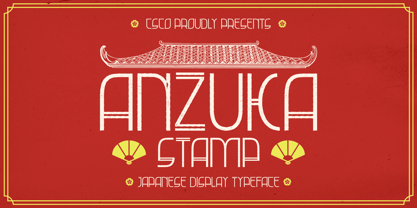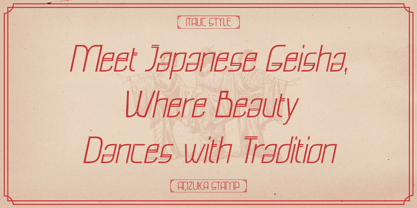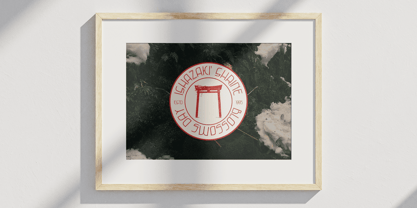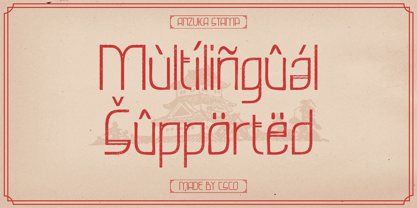
Anzuka Stamp
by Craft Supply Co
The Anzuka Stamp Font Family was designed by Trio Nazzar Saputra, Wahyu Hadi Yuana and published by Craft Supply Co. Anzuka Stamp contains 2 styles and family package options. More about this family
Anzuka Stamp Font: Where Art Deco Elegance Meets Modern Flair
Art Deco-Inspired Sans Serif
Anzuka Stamp is a modern sans serif font that masterfully blends the opulence of Art Deco design with a distinctive stamp effect. Characterized by its geometric shapes and intricate details, this font exudes luxury and sophistication, making it a standout choice for a variety of creative projects. The combination of clean lines and decorative elements gives Anzuka a timeless quality that resonates with both contemporary and vintage aesthetics.
Unique Stamp Effect for Visual Impact
The appealing stamp effect adds a layer of texture and depth, creating an engaging visual experience that enhances the overall design. This unique feature imbues each letter with personality, offering a fresh take on traditional typography. Anzuka Stamp captures the essence of modern nostalgia, striking a perfect balance between elegance and playfulness that is ideal for attention-grabbing applications.
Versatile Applications for Creative Projects
Perfect for branding, invitations, and promotional materials, Anzuka Stamp adapts seamlessly to various design contexts. Its sophisticated appearance elevates any project, whether you’re crafting elegant wedding invitations, creating standout branding for a luxury product, or designing eye-catching marketing materials. The font’s versatility ensures it can be used effectively across a range of formats and mediums.
Designers: Trio Nazzar Saputra, Wahyu Hadi Yuana
Foundry: Craft Supply Co